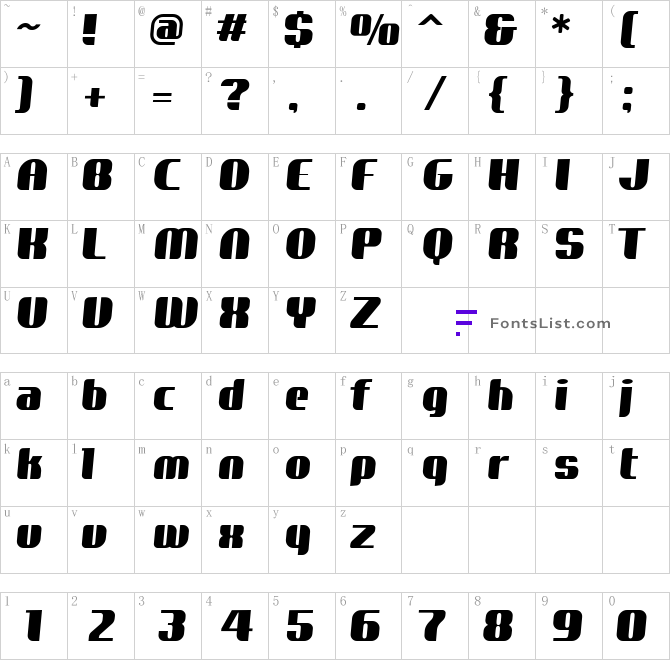
- Font Name:Camellia
- Subfamily:ExtraBold
- Subfamily:Macromedia Fontographer 4.1J Camellia ExtraBold
- Full Name:Camellia ExtraBold
- Weight:800
Camellia-ExtraBold.ttf is a very beautiful artistic font, Camellia-ExtraBold.ttf is widely used in the design and printing of various books and pictures,Camellia-ExtraBold.ttf has a strong visual impact,Camellia-ExtraBold.ttf is a commonly used font in newspapers, magazines and books, and is used in posters, e-commerce Poster design, store design, logo design, font design and other fields.Camellia-ExtraBold.